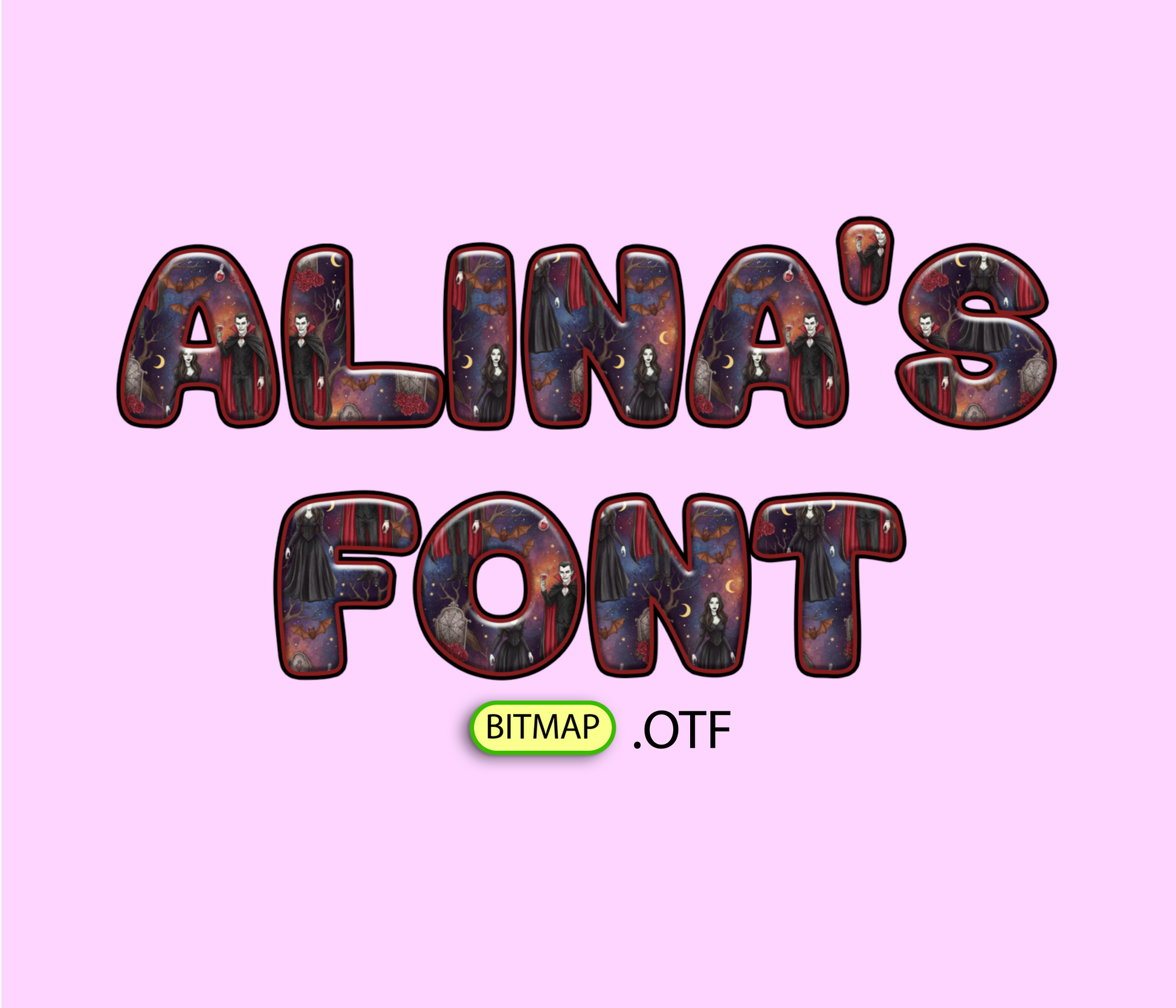
Bloodthirsty Night Pattern Font
Step into the spooky world of nocturnal creatures with our Bloodthirsty Night Pattern font, capturing the essence of fanged monsters and haunted celebrations. Perfect for Halloween fans, horror creators, event organizers, and designers, this font brings the dark, mysterious spirit of midnight hunters to your projects. Create eerie materials, merchandise, or digital content with the chilling energy of creature festivities.
Our Bloodthirsty Night Pattern font features gothic, ornate lines and spooky patterned characters reflecting the world of nocturnal beasts. Ideal for:
Our font pays tribute to the iconic world of Halloween creatures, empowering your designs with its dark and mysterious spirit. Whether crafting promotional materials, designing merchandise, or adding a spooky touch to personal projects, this font communicates the chilling essence of nocturnal monsters. Ready to inject haunting power into your creations? This font is your key to exciting, impactful design.